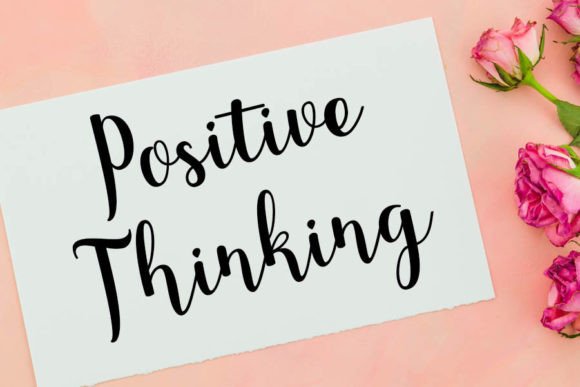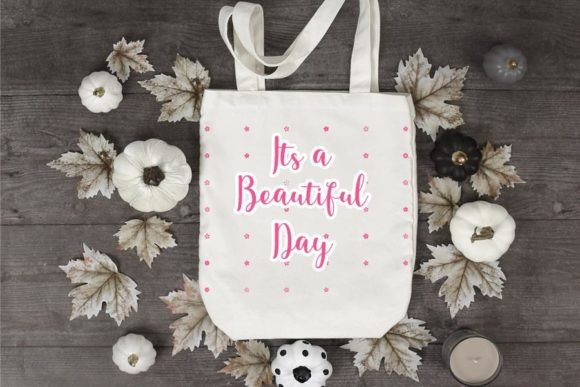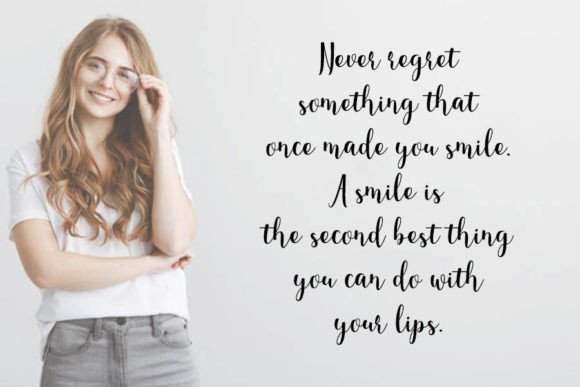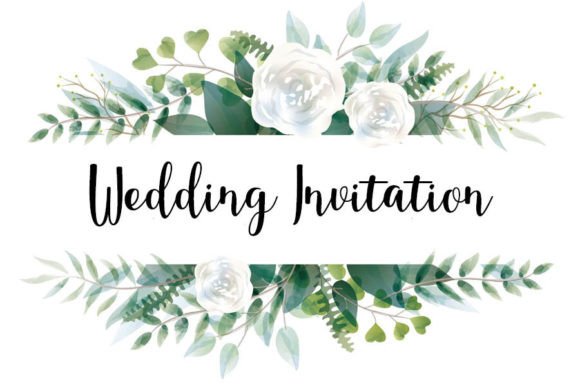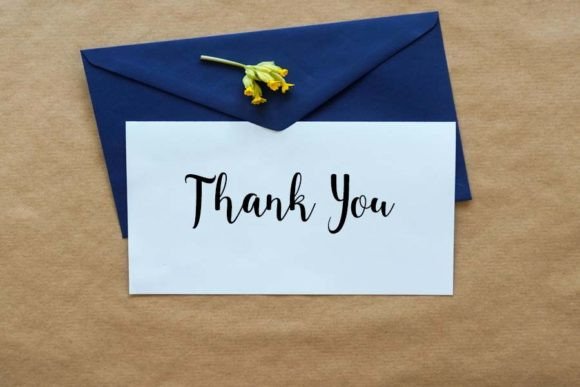
Introducing Fisherman Font: The Ultimate Whimsical Script for Coastal Designs
Are you looking for a font that captures the essence of a carefree seaside adventure? Do you want to add a touch of coastal charm to your designs? Look no further than Fisherman Font, a whimsical and organic script & handwritten typeface that’s perfect for beach-themed designs, logos, and branding projects.
A Font that Embodies the Spirit of the Sea
Fisherman Font is a unique and refreshing typeface that brings a sense of joy and relaxation to your designs. Its flowing lines and playful character make it an ideal choice for designers and crafters who want to evoke the feeling of a seaside escape. Whether you’re working on a logo, branding project, or social media graphics, Fisherman Font is sure to add a touch of coastal charm that will make your text feel as refreshing as a sea breeze.
Key Features of Fisherman Font
- Whimsical and Organic Design: Fisherman Font features a unique, hand-drawn design that’s full of character and personality.
- Flowing Lines and Playful Character: The font’s flowing lines and playful character make it perfect for creating eye-catching and engaging designs.
- Script & Handwritten Typeface: Fisherman Font is a script & handwritten typeface that’s perfect for adding a personal touch to your designs.
- Perfect for Beach-Themed Designs: The font’s coastal vibe makes it an ideal choice for beach-themed designs, logos, and branding projects.
Why Choose Fisherman Font?
So, why should you choose Fisherman Font for your next design project? Here are just a few reasons:
- Adds a Touch of Coastal Charm: Fisherman Font adds a touch of coastal charm to your designs, making them feel fresh and exciting.
- Captures the Spirit of Handwritten Creativity: The font’s handwritten design captures the spirit of creativity and individuality, making your text feel more personal and engaging.
- Perfect for Logos and Branding Projects: Fisherman Font is an ideal choice for logos and branding projects, as it adds a unique and memorable touch to your brand identity.
- Easy to Read and Understand: Despite its playful design, Fisherman Font is easy to read and understand, making it perfect for use in a variety of design applications.
How to Use Fisherman Font in Your Designs
Using Fisherman Font in your designs is easy! Here are a few tips to get you started:
- Pair it with Other Fonts: Fisherman Font pairs well with other fonts, so don’t be afraid to experiment with different combinations.
- Use it for Headings and Titles: The font’s playful design makes it perfect for use in headings and titles, where it can add a touch of personality and flair.
- Add it to Your Branding Materials: Use Fisherman Font in your branding materials, such as logos, business cards, and social media graphics, to add a touch of coastal charm.
In conclusion, Fisherman Font is a unique and refreshing typeface that’s perfect for designers and crafters who want to add a touch of coastal charm to their designs. With its whimsical and organic design, flowing lines, and playful character, this font is sure to capture the essence of a carefree seaside adventure. So why wait? Download Fisherman Font today and start creating beautiful, eye-catching designs that will leave your audience feeling refreshed and inspired!